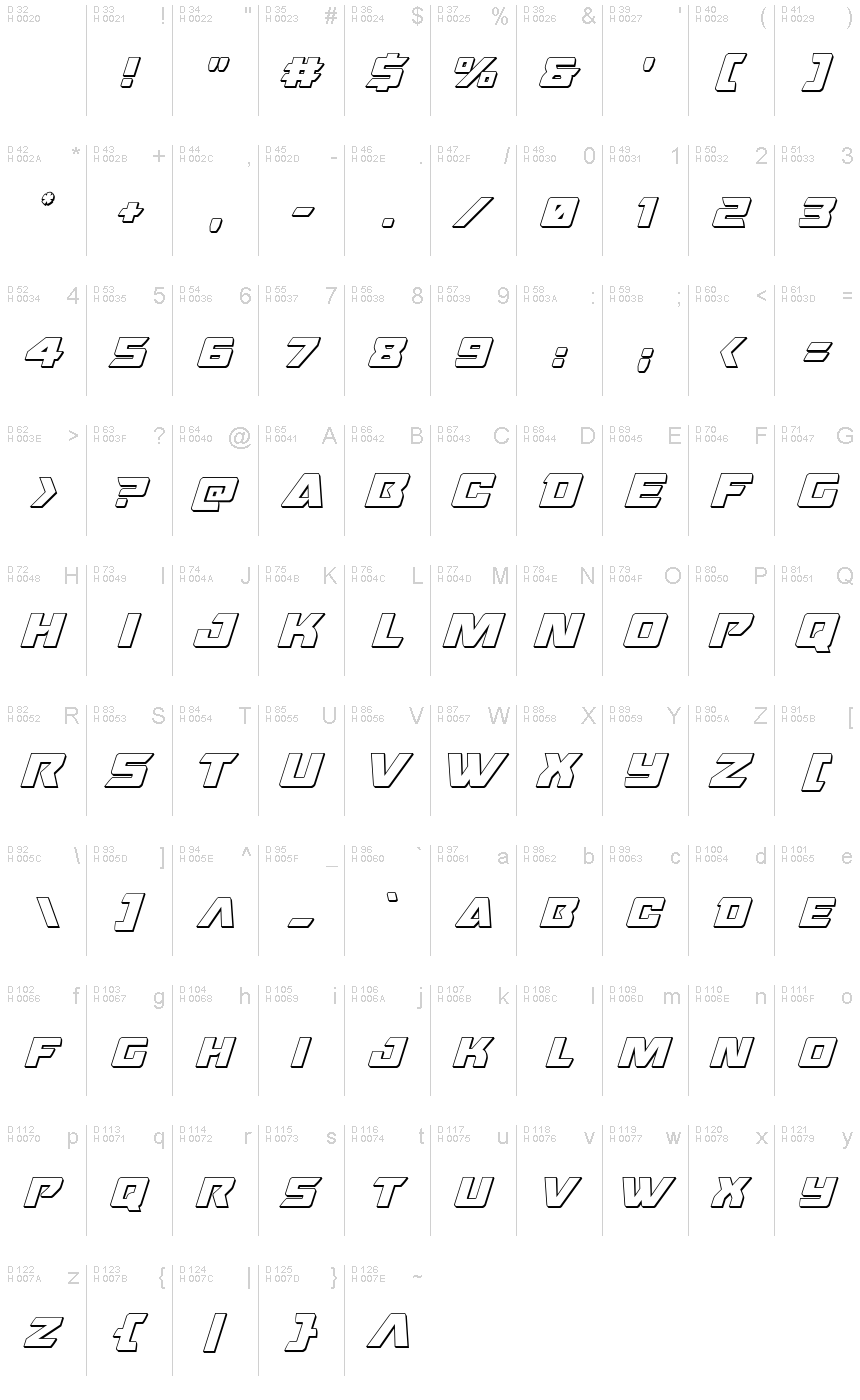
Oceanic Drift 3D Italic
Oceanic Drift is a captivating 3D futuristic font that commands attention. Its bold, expanded letters evoke a sense of movement and dynamism, making it an ideal choice for display purposes.
The striking italic style lends it a sleek, contemporary edge, while the three-dimensional effect adds depth and visual interest. This font's unique character would shine in a wide range of applications, from bold headlines and logos to eye-catching packaging and promotional materials.
Its futuristic aesthetic effortlessly bridges the gap between the modern and the visionary, making Oceanic Drift a versatile typographic solution for designers seeking to make a bold statement.